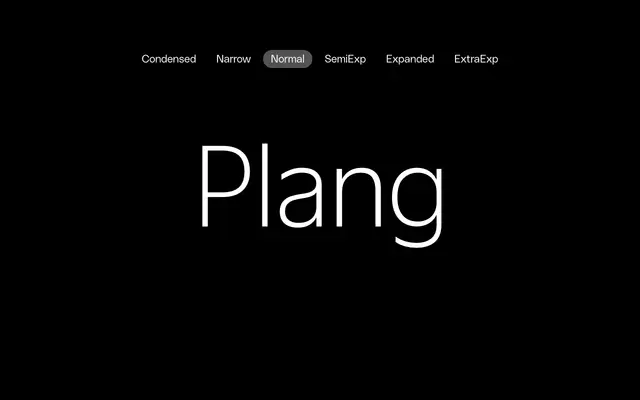
Plang Normal specimen from Gradient
A humanist sans rooted in the hand-painted signage of Keprabon Street in Surakarta, Indonesia, where brush painters earnestly tried to replicate printed type and produced something more interesting in the process.
Named after the Indonesian word for signage, Plang captures the productive tension between mechanical precision and the human hand. The Normal width is one of six widths across a system of 108 styles, spanning nine weights from Thin to Black each with a matching italic. Language support covers Latin Extended, Cyrillic Extended, Greek, Vietnamese and Pan-African scripts.
Drawn from the tradition of Indonesian sign painters trying to replicate printed type by hand, Plang sits in the humanist sans category, carrying the warmth and slight irregularity of brush-influenced letterforms resolved into a disciplined type system.